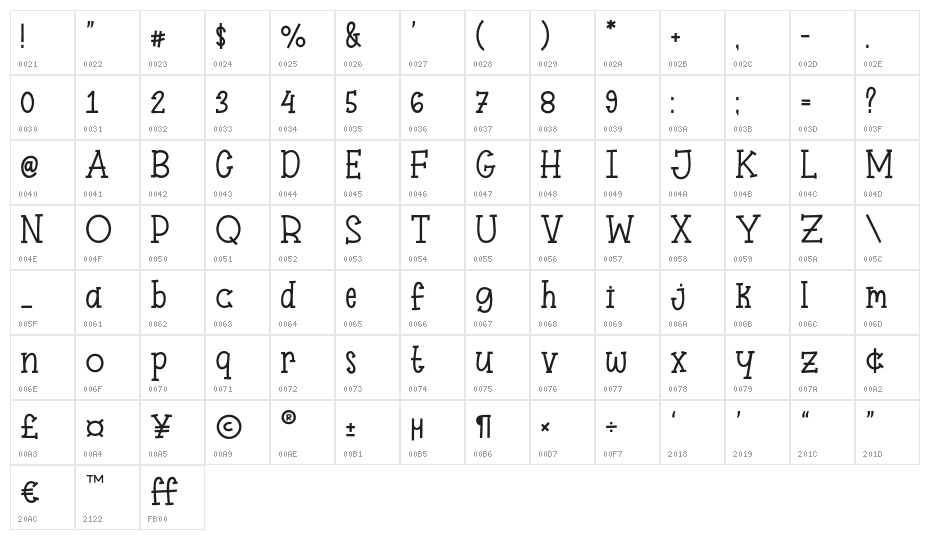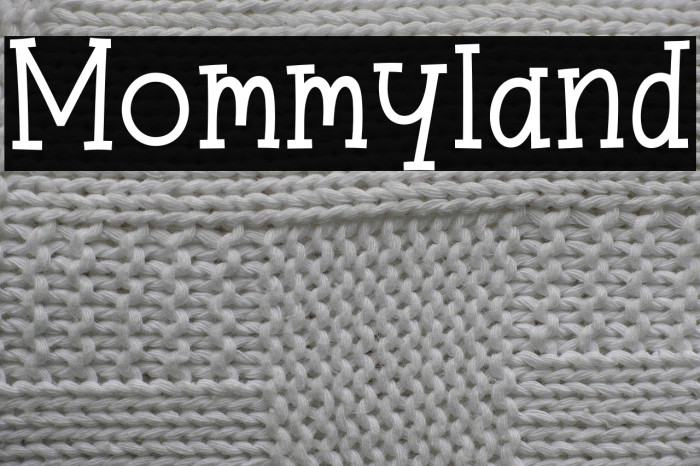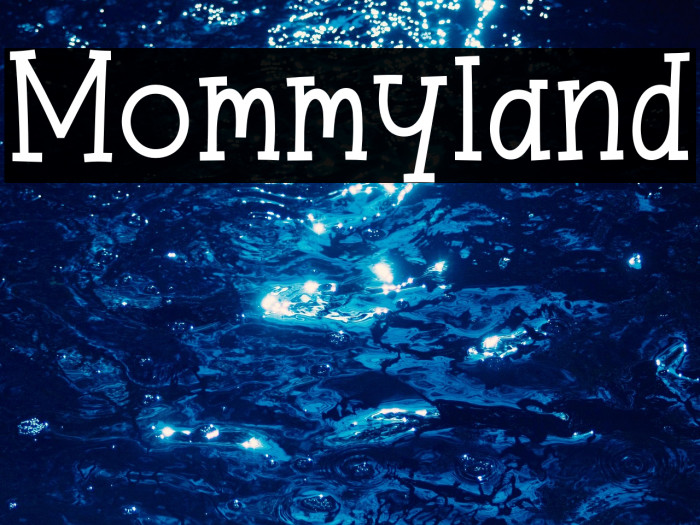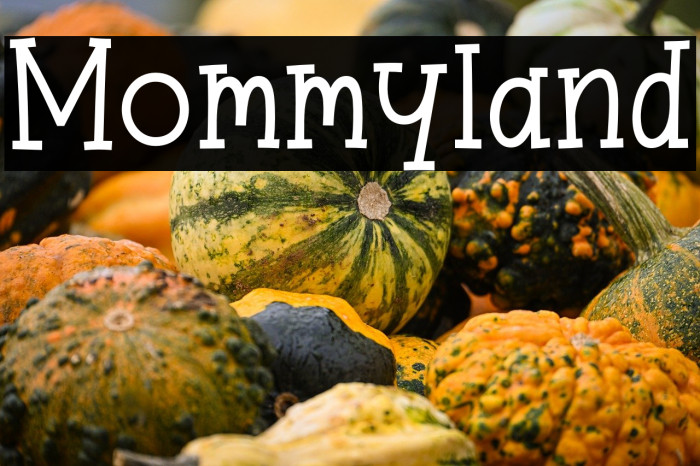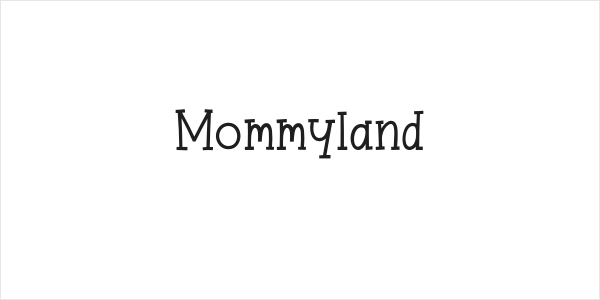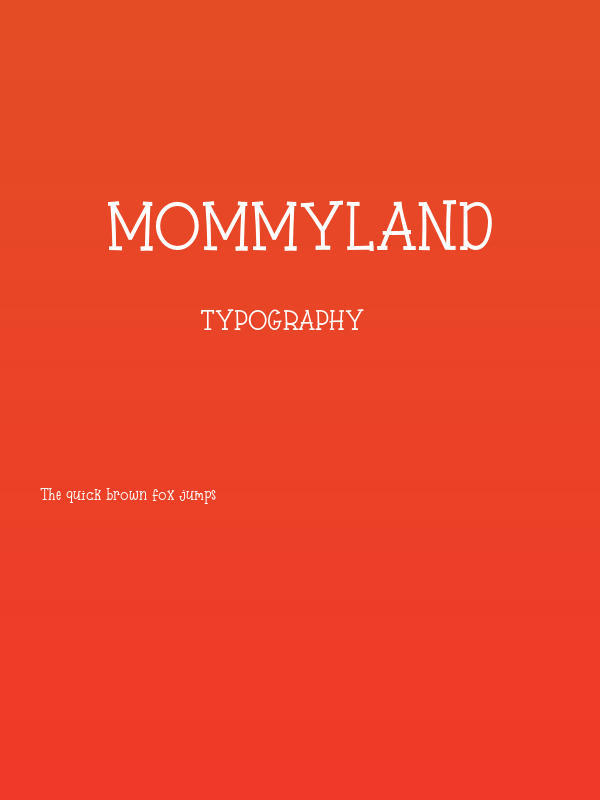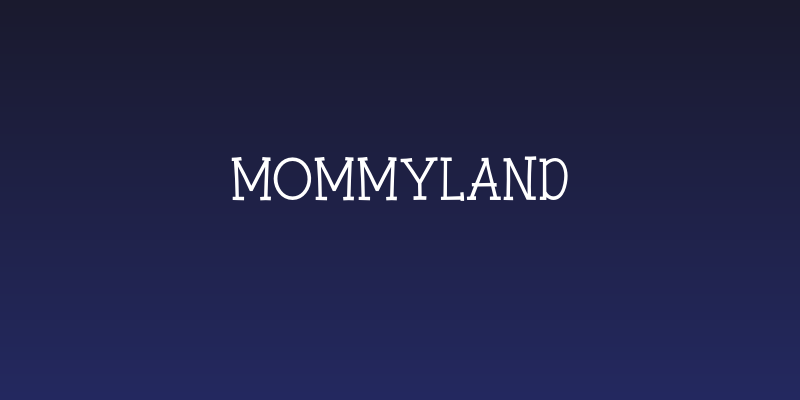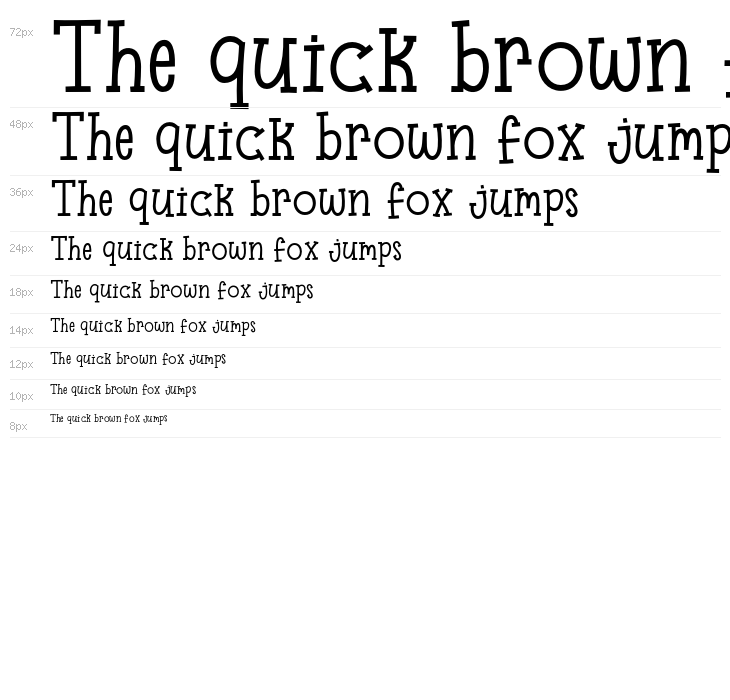
Mommyland Font
Mommyland Description
This playful and whimsical font features a hand-drawn aesthetic with a slightly uneven baseline, giving it a charming and informal appearance. The uppercase letters are bold and slightly condensed, while the lowercase letters maintain a consistent style with rounded edges and a friendly demeanor. The numerals are clear and legible, matching the overall playful style. Special characters are creatively designed, adding to the font's unique personality. This font is perfect for projects that require a lighthearted and approachable feel.
| Use Case | Headlines, Logos, Casual Text |
| Proposed Projects | Ideal for children's books, playful branding, greeting cards, and casual invitations. |